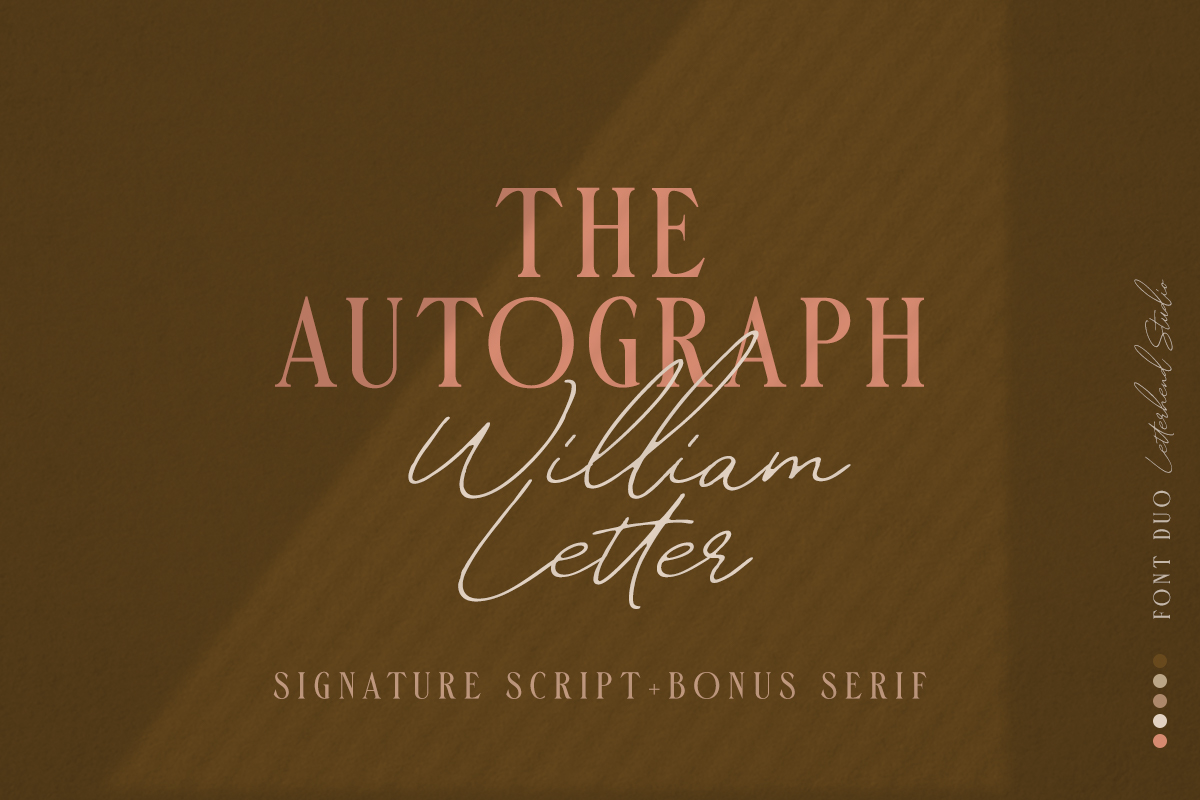
William Font
William Font is perfect for distinguished law firm branding, established financial institution communications, traditional academic publications, prestigious corporate presentations, classic business correspondence, refined professional service materials, heritage company identities, formal governmental documents, distinguished literary publications, and timeless institutional signage. This authoritative typeface brings classical elegance to established banking organizations, traditional consulting firms, prestigious educational institutions, heritage preservation societies, and distinguished professional associations.
William Font is exciting because it embodies timeless authority and classical sophistication through its traditionally crafted letterforms that honor the legacy of distinguished typography and professional excellence. The font features dignified characters with classical proportions and refined details that evoke the reliability of established institutions, the wisdom of traditional craftsmanship, and the enduring strength of time-tested design principles. Its distinctive construction demonstrates institutional gravitas with carefully balanced elements that create an immediate sense of trustworthiness and professional authority. The font's classical presence and traditional authenticity make it perfect for organizations seeking to communicate established credibility, professional heritage, and the timeless appeal of traditional excellence in their visual communications.
William Font family includes various distinguished styles: Light, Regular, Medium, Bold, Black, Italic, Condensed, Extended, Display, Classic, Traditional, and Institutional variants. Each family member maintains the core classical DNA while offering different levels of authority for diverse professional design applications. The comprehensive font collection ensures consistent traditional branding across heritage campaigns, professional services, and institutional communication materials.
Whether you're creating professional brand identities, designing traditional marketing materials, developing institutional website headers, or crafting heritage promotional campaigns, William Font delivers outstanding classical appeal and traditional authenticity. The font's distinctive dignified personality excels in professional logos, institutional packaging design, traditional applications, and heritage projects where classical authority and established credibility are essential.